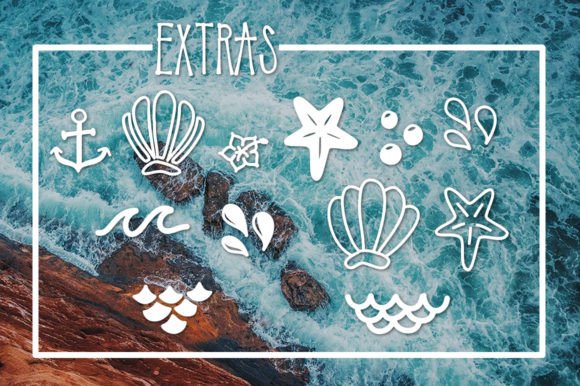
Freebie Wednesday: Free Mermaid Tails Font
Introducing Mermaid Tails font – a beautiful and playful font with a unique twist. This whimsical typeface has been designed to make your projects stand out. Each letter of this font is has been adorned with delicate tails, making it the perfect choice for creatives who want to make their projects memorable.